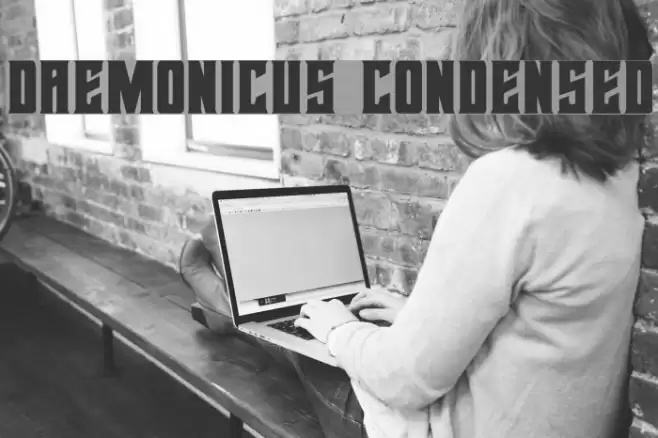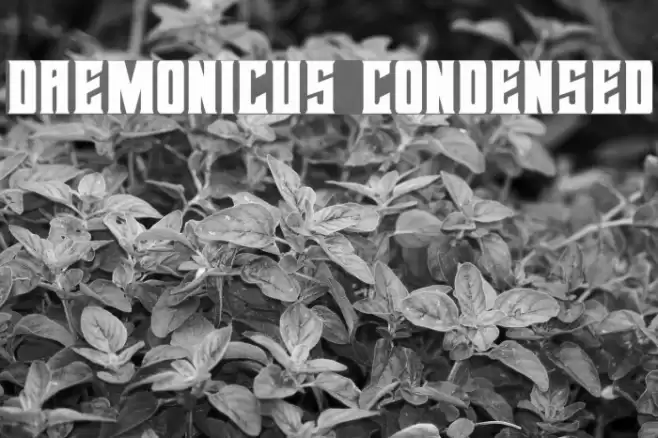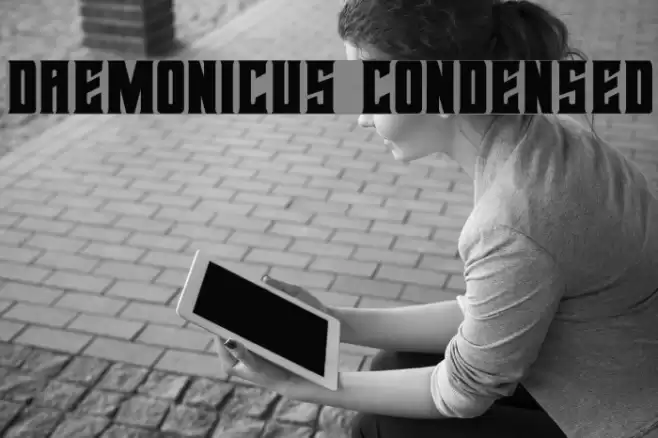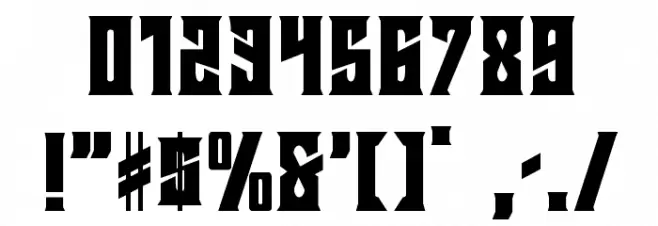
Daemonicus Condensed Font
Daemonicus Condensed Description
This font features a bold and condensed style with sharp, angular edges and a distinct Gothic influence. The uppercase letters are particularly striking, with a strong presence that commands attention. The lowercase letters maintain the same boldness, ensuring consistency throughout the typeface. Numbers and special characters are designed with the same angular and condensed characteristics, making them easily recognizable and cohesive with the overall design. The font's unique style is ideal for projects that require a dramatic and impactful visual element.
A bold, condensed Gothic-style font with sharp, angular edges from Uncategorized fonts.
- Proposed Projects: Ideal for posters, album covers, video game titles, and any project requiring a dramatic and bold visual impact.
- Overall Style: Gothic, Dramatic